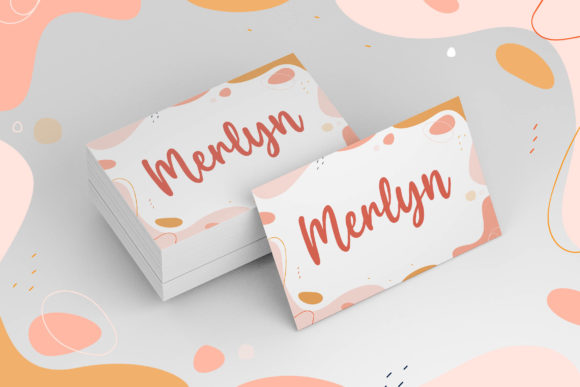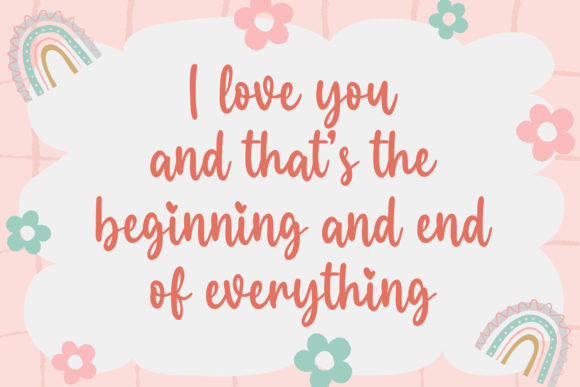
Oniely Font
db-ku.com - Script & Handwritten -- Oniely is an elegant and dainty handwritten font that features sweet and delicate swashes. This original look will appeal to a wide range of crafty ideas, from letterheads and titles, to stationery.